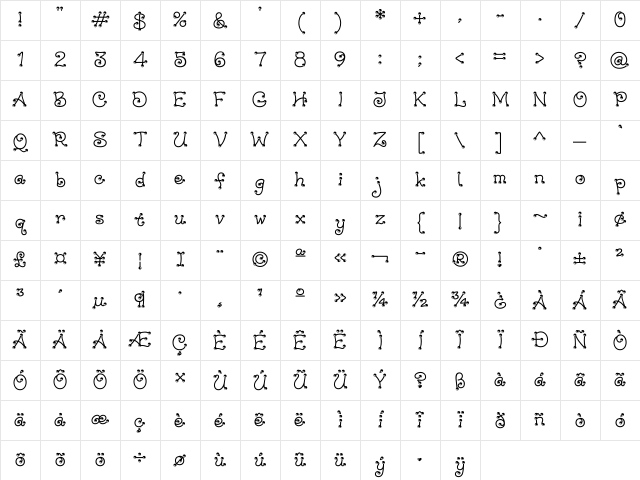
WILD2 Marbles & Strings Normal
Design Context for WILD2 Marbles & Strings
WILD2 Marbles & Strings is a composed and adaptable typeface that performs quietly and consistently across a wide range of design contexts.